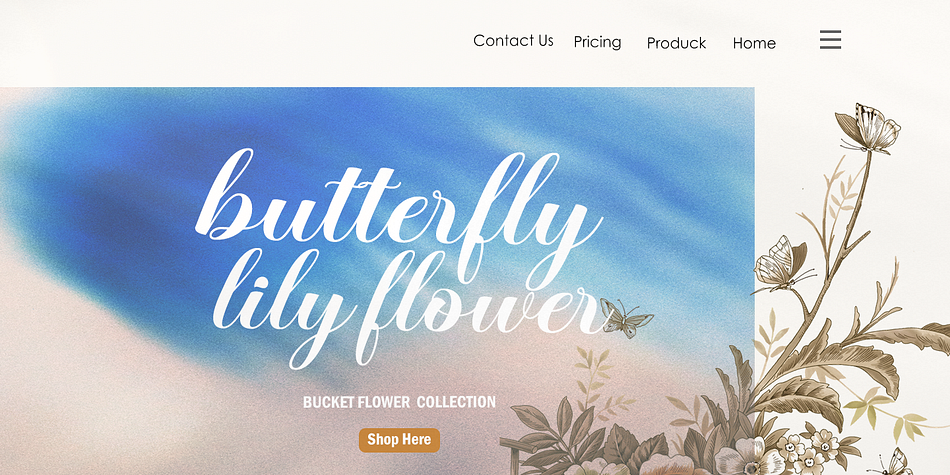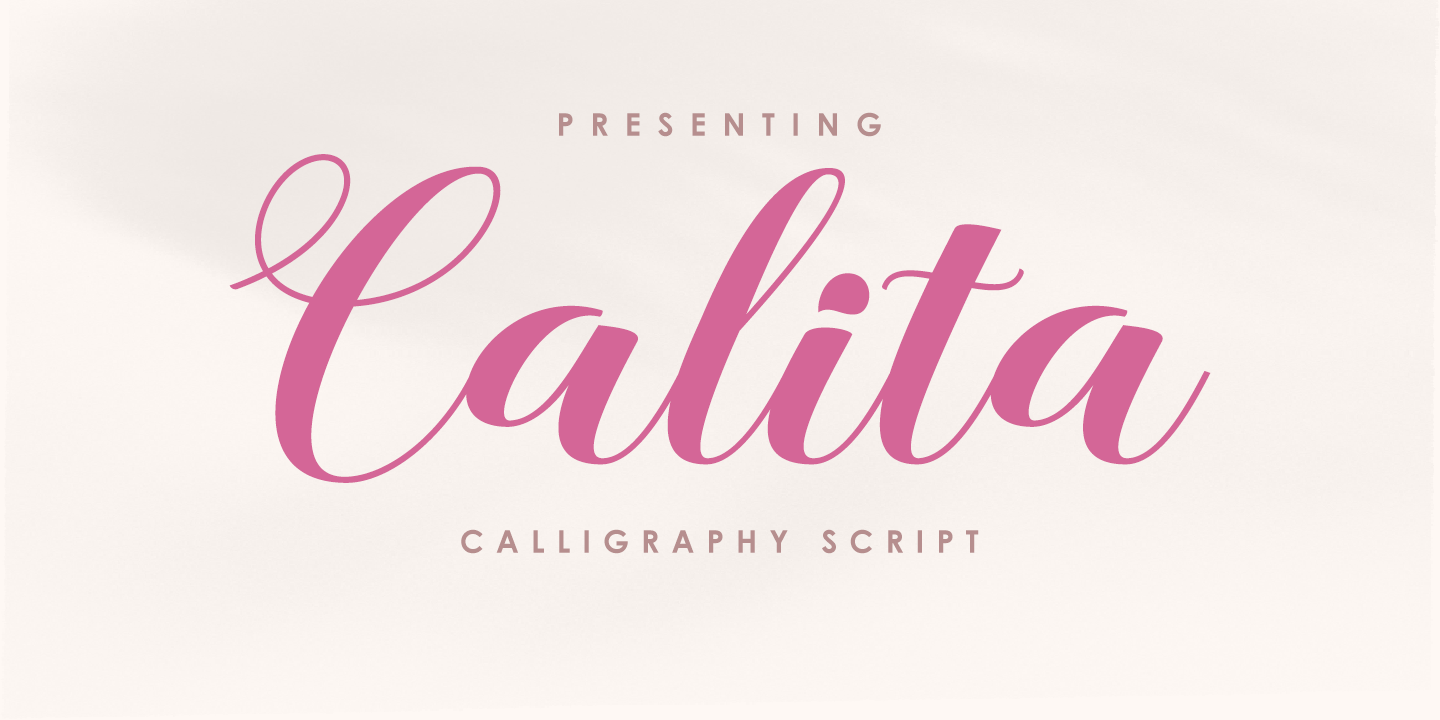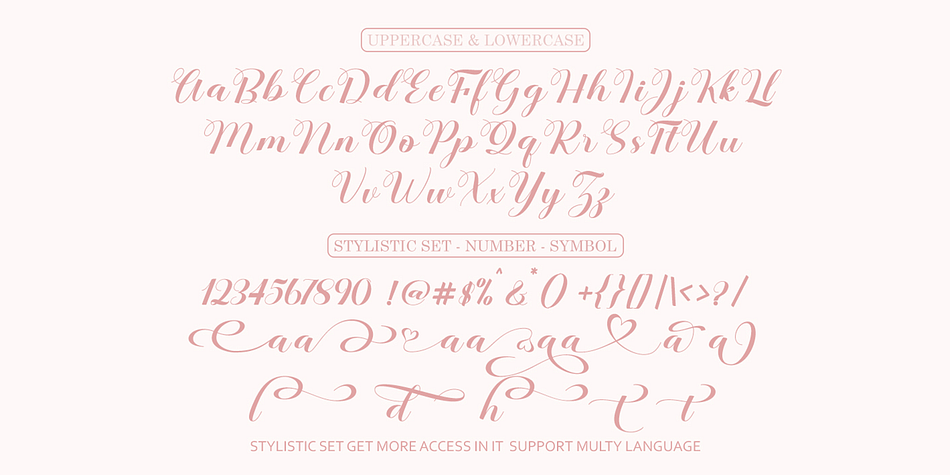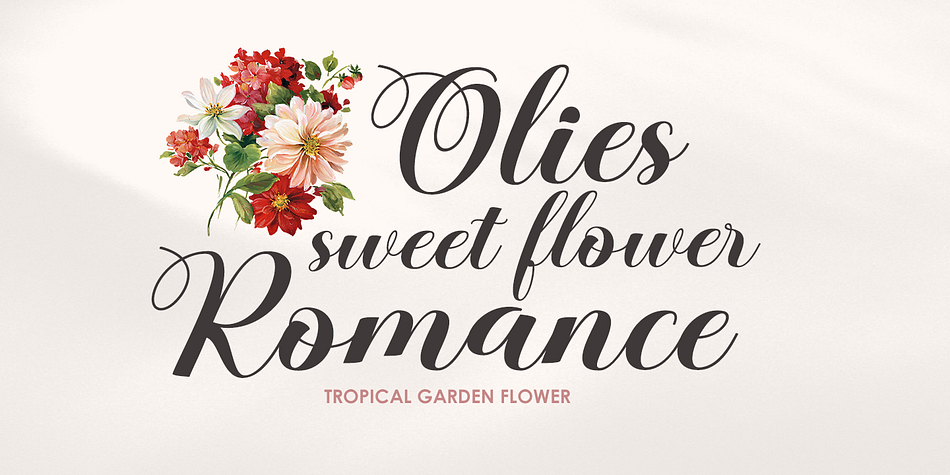
Calita
Calita is a modern calligraphy font family published by Gatype.
Calita Calligraphy Modern thick and firm style that you can get now! With character replacement styles updated with special glyphs that have been given a combination of fantasy and handwritten ink. This font will look beautiful on all designs, New Year designs, Weddings, branding materials, blog titles, quotes and invitations, business cards.
Open Type includes:
Alternative Style
Set style
Swash